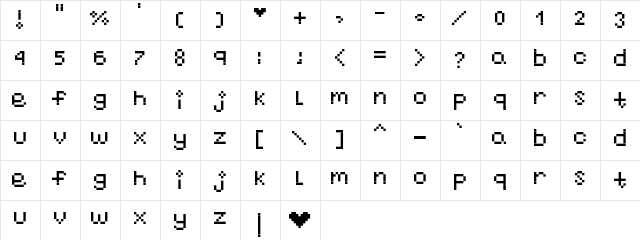
nayupixel Regular
nayupixel celebrates the constraints of early digital type, turning pixel geometry into a distinctive and immediately recognisable style.
A natural choice for retro game titles, chiptune music branding, 8-bit UI, and digital nostalgia projects.
Pro Tip: Pair nayupixel with flat colour palettes and simple geometric UI elements to reinforce its digital aesthetic.